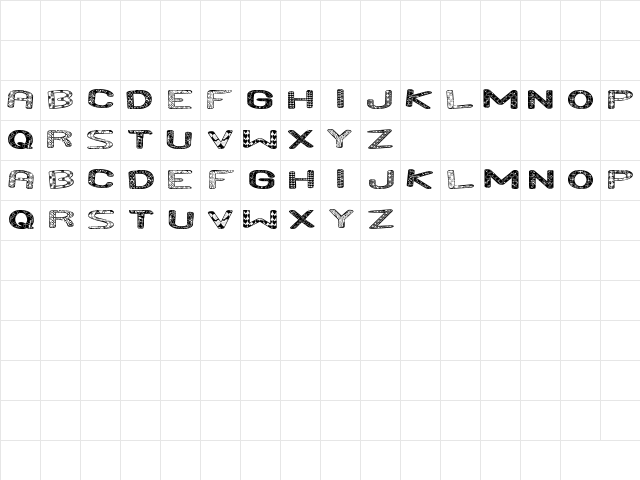
And Run St Regular Free Font
And Run St Regular
Design Context for And Run St
And Run St is a composed and adaptable typeface that performs quietly and consistently across a wide range of design contexts.
Pro Tip: Use And Run St in both headline and body roles to test its range before committing to a single application.